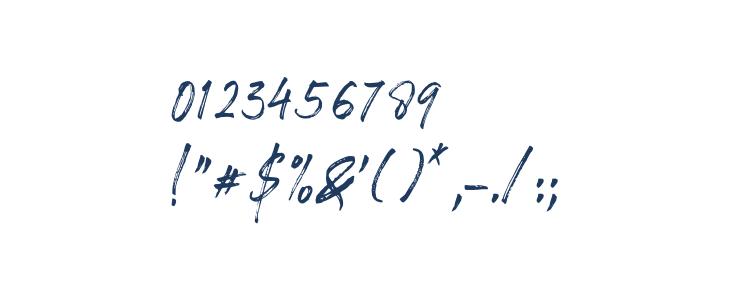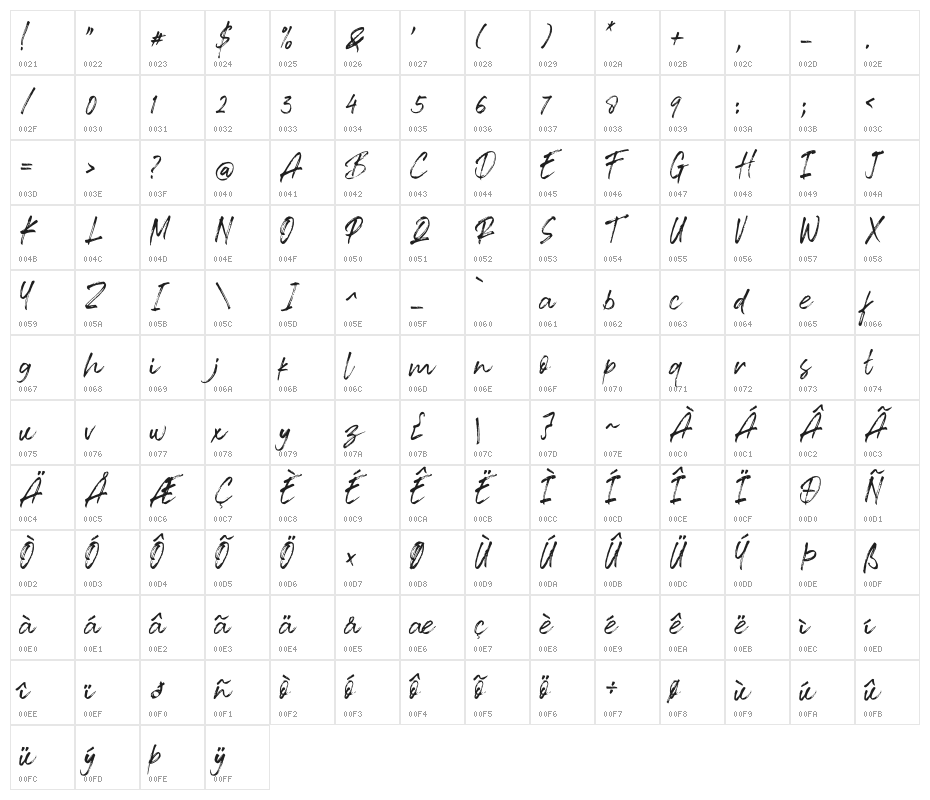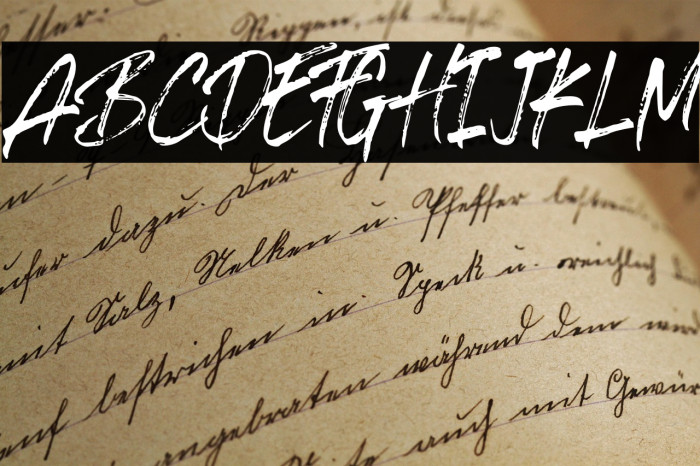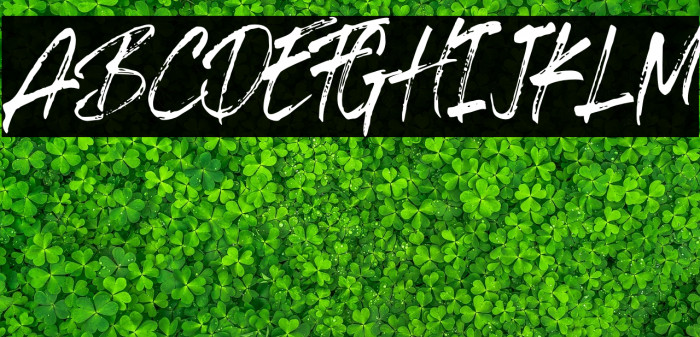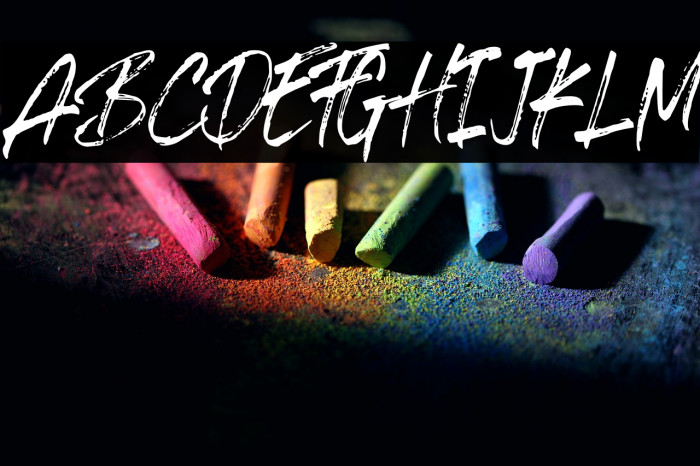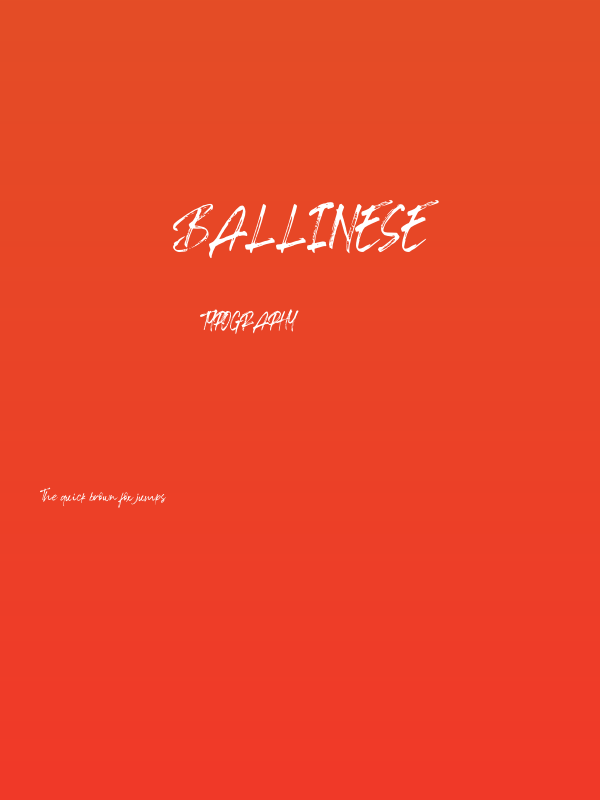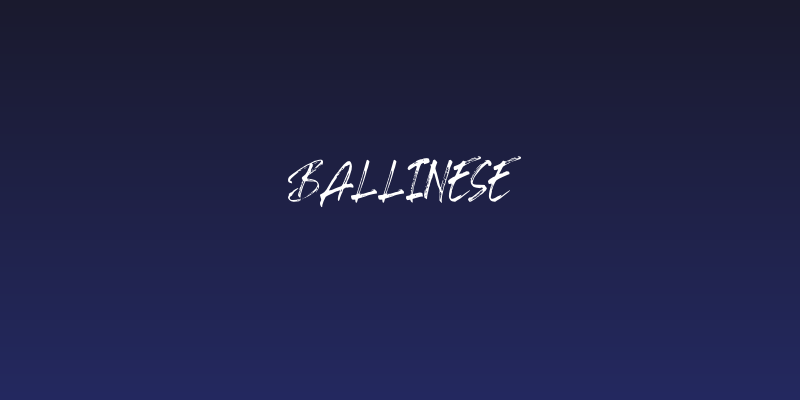
Ballinese Font
Ballinese Description
This font exhibits a dynamic and expressive style, characterized by its brush-like strokes and irregular, handcrafted appearance. The uppercase letters are bold and impactful, with varying thickness that adds a sense of movement and energy. The lowercase letters maintain this fluidity, offering a cohesive look throughout the alphabet. Numbers and special characters follow the same artistic approach, ensuring consistency. The overall design is reminiscent of artistic calligraphy, making it suitable for creative and bold applications.
Proposed ProjectsIdeal for artistic projects, branding, posters, and any design requiring a bold, creative touch.